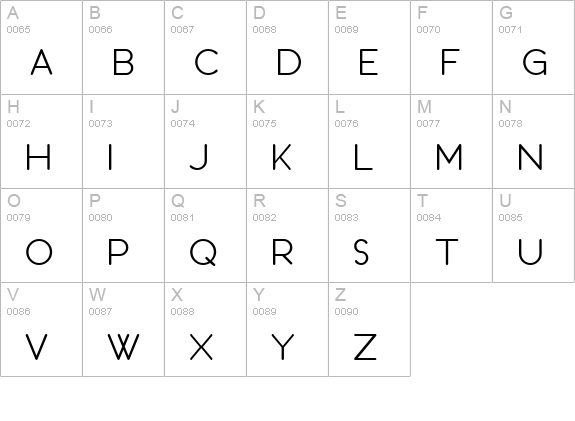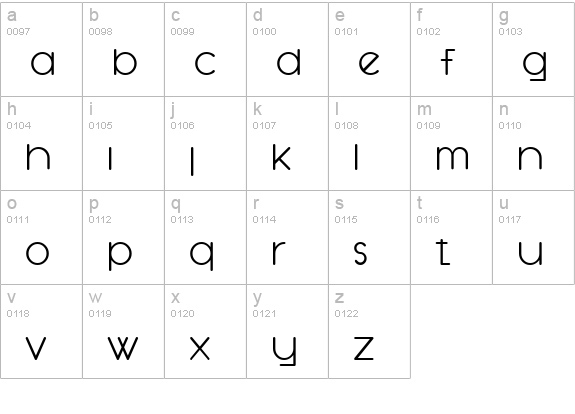
SF Orson Casual Light Font Details
SF Orson Casual Light is a refined, elegant variant in the SF typeface family \xE2\x80\x94 well suited to elegant body text, refined sub-headings, and luxury branding.
SF Orson Casual Light font is a stunning typeface that effortlessly combines sophistication with a touch of playfulness. With its clean lines and subtle curves, this font exudes an air of modernity and elegance. Its light weight gives it a delicate and refined appearance, making it perfect for a variety of design projects. Whether you're creating a logo, designing a website, or working on a branding project, SF Orson Casual Light font will add a touch of class and professionalism to your work. Its versatility allows it to adapt to any style or theme, making it a valuable asset for designers of all kinds. What makes SF Orson Casual Light font even more appealing is that it is free. Yes, you read that right! This fantastic font is freely available to download at FontsMarket.com. Now you can enhance your designs with this beautiful typeface without having to worry about breaking the bank. Don't miss out on the opportunity to add SF Orson Casual Light font to your collection. Its unique blend of elegance and playfulness will elevate your designs to new heights. Download this font for free at FontsMarket.com and let your creativity soar.